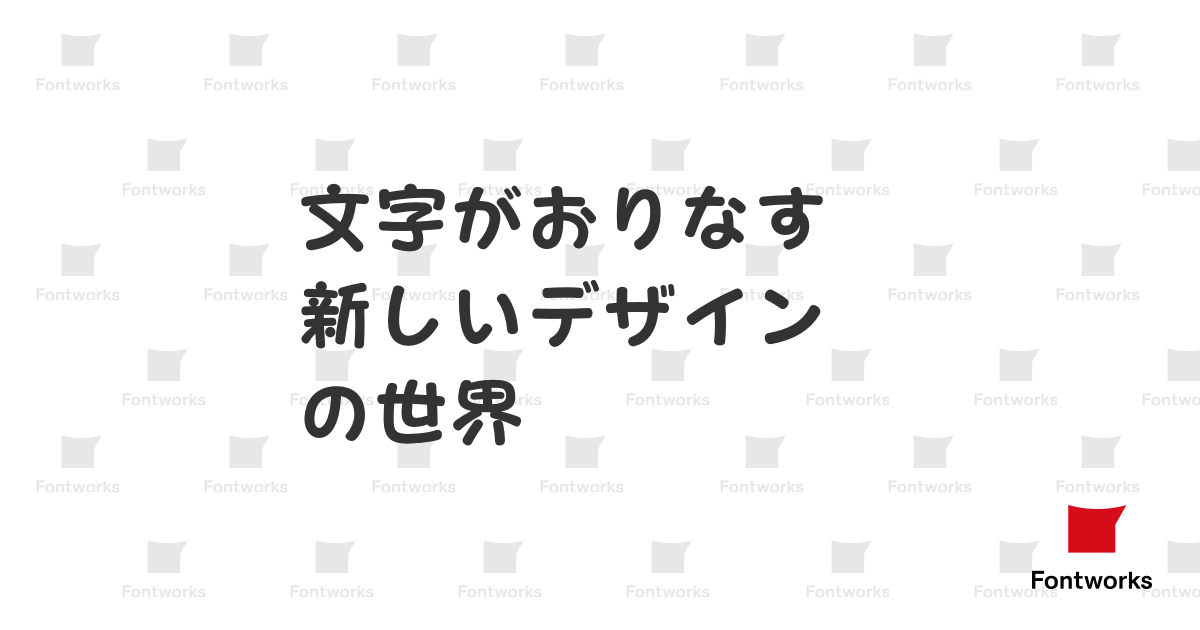
Pop Joy Font
Pop Joy Font - Ago • edited 3 yr. Web pop joy (ポップジョイ?) a.k.a. Web official paper mario font. In other words, it's finished. I believe it’s the same font that’s used in ttyd, only more pixelated. The search for the official paper mario font has been folded! Popジョイ is an informal handwriting font with rounded terminals, with support for japanese and.